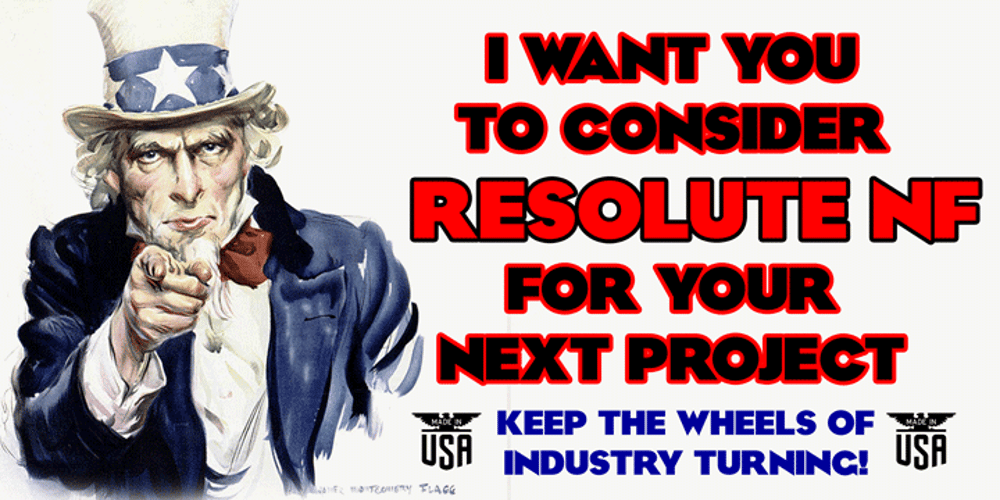
Resolute NF Font Family was designed by Morris Fuller Benton, Nick Curtis and published by Nick’s Fonts. Resolute NF contains 1 styles and family package options. Morris Fuller Benton’s Eagle, designed for ATF in 1934, which did yeoman-like duty on many WPA posters of the time. This version, unicase as was the original, has been designed to set tight, so that it creates dense and commanding headlines. All versions of this font include the Unicode 1250 Central European character set in addition to the standard Unicode 1252 Latin set.